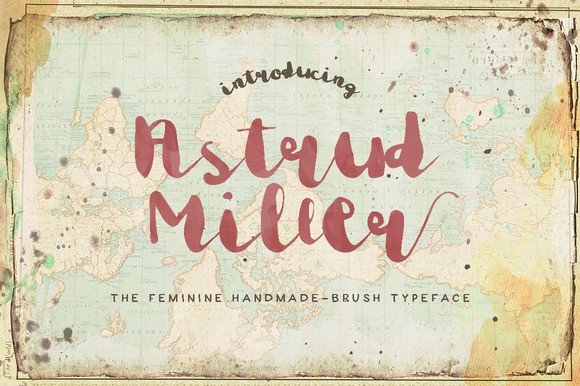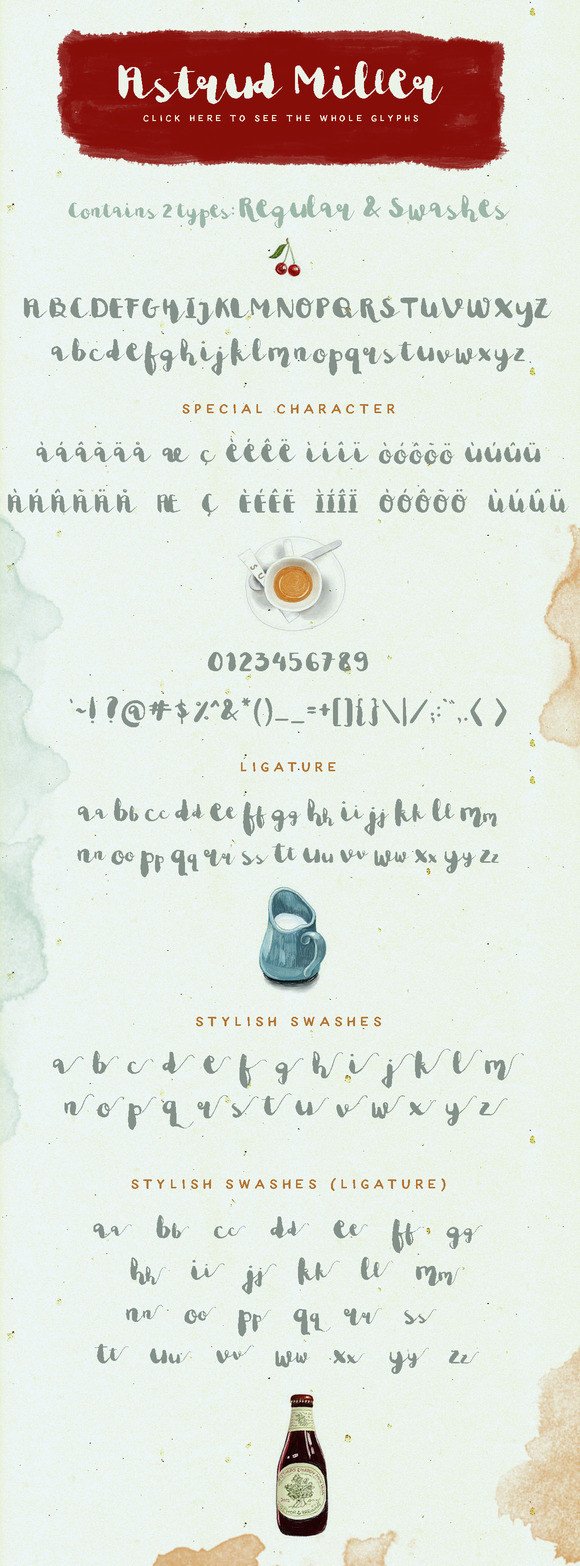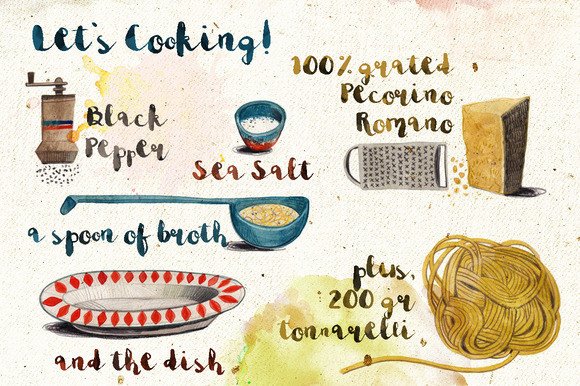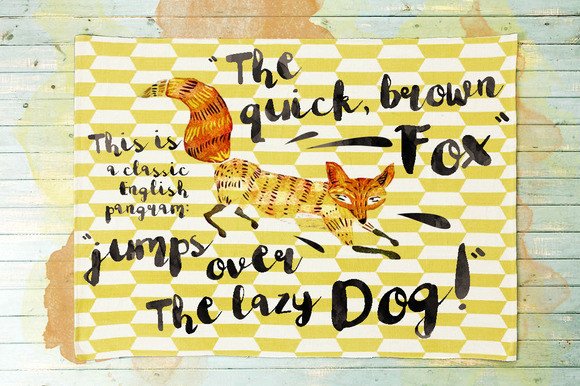
Astrud Miller Font
About Astrud Miller Font
Astrud Miller is a feminine brush-type font, with a rather bulky and short style.
The font has both regular and swashes styles, so you can easily mix
and match Astrud Miller for any design project: your wedding invites, birthday cards and greetings, illustration titles, posters, return addresses,
signatures, branding work and tons more.